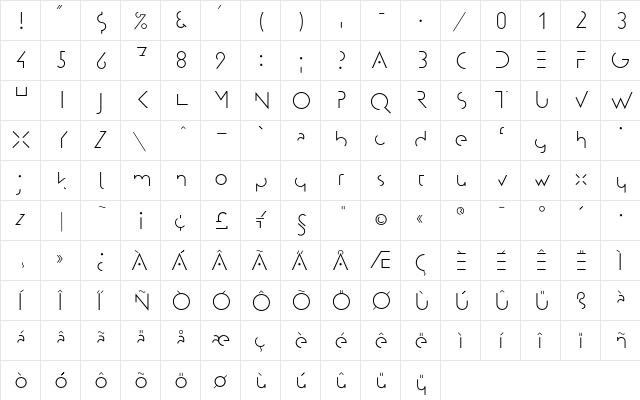
Artgallery Regular
Design Context for Artgallery Typeface
Artgallery offers clean, dependable letterforms without strong stylistic allegiance, making it a practical choice for designers who need flexibility.